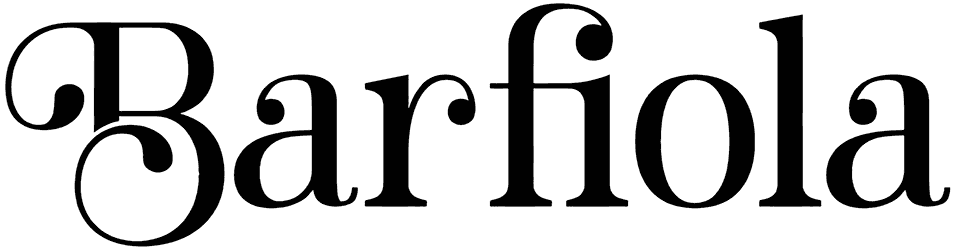
Barfiola Font
Whether you desire to have a chic and confident visual or just a timeless layout, a serif font like this item can be the right answer. Barfiola font offers a classic and royal style that is readable and impressive enough. Any project for any field, from fashion to industry, can benefit from this basic font and be salient.